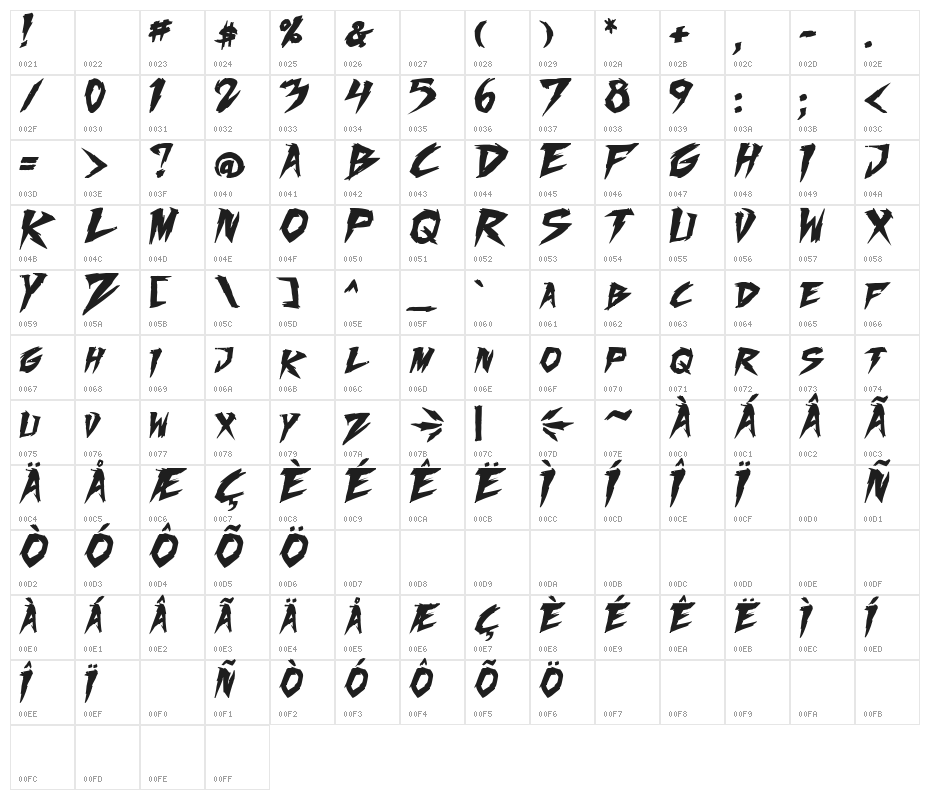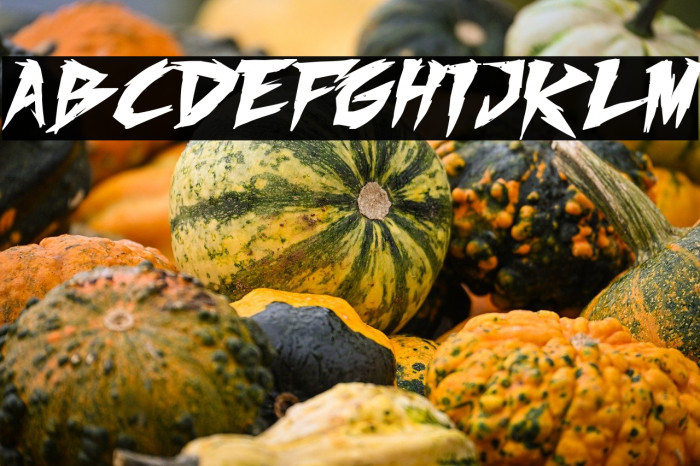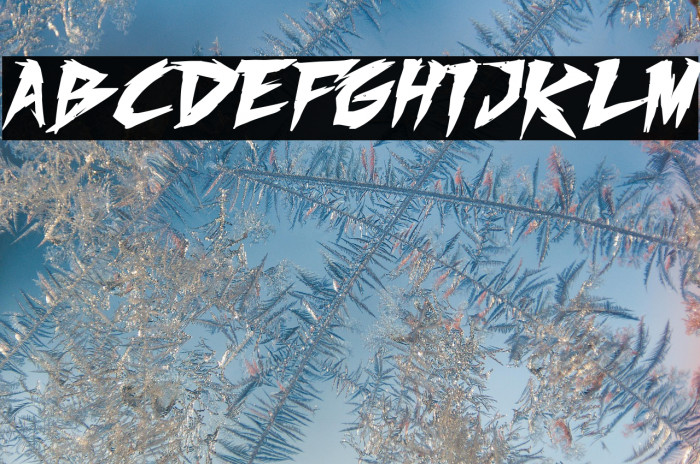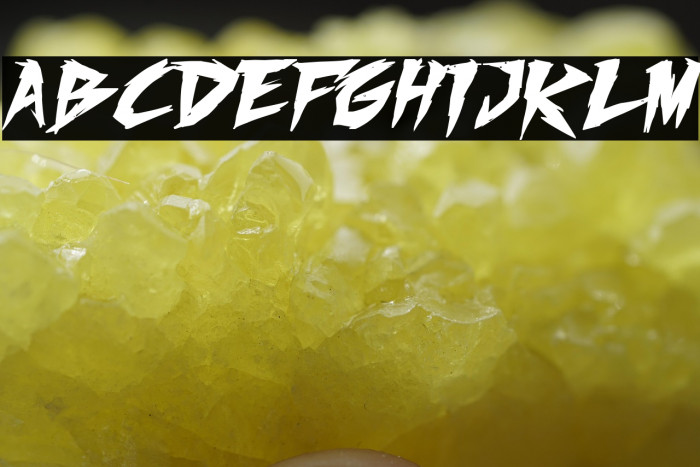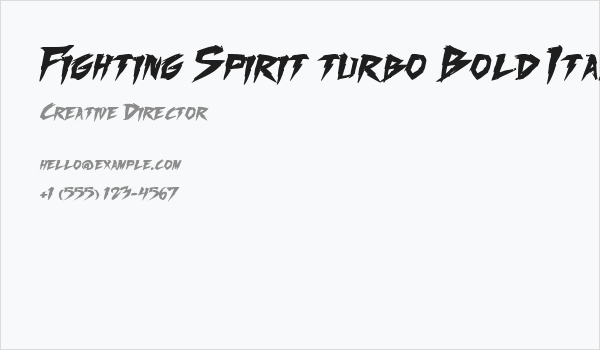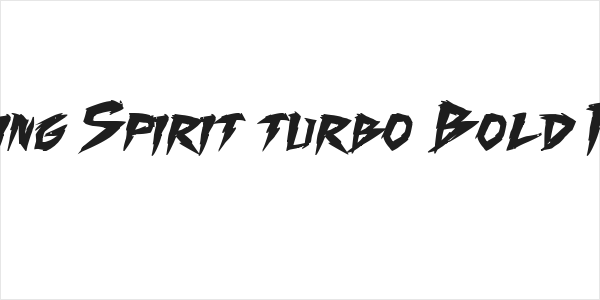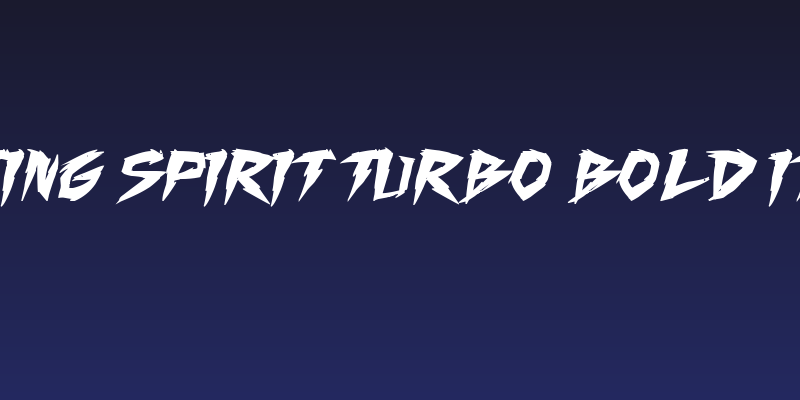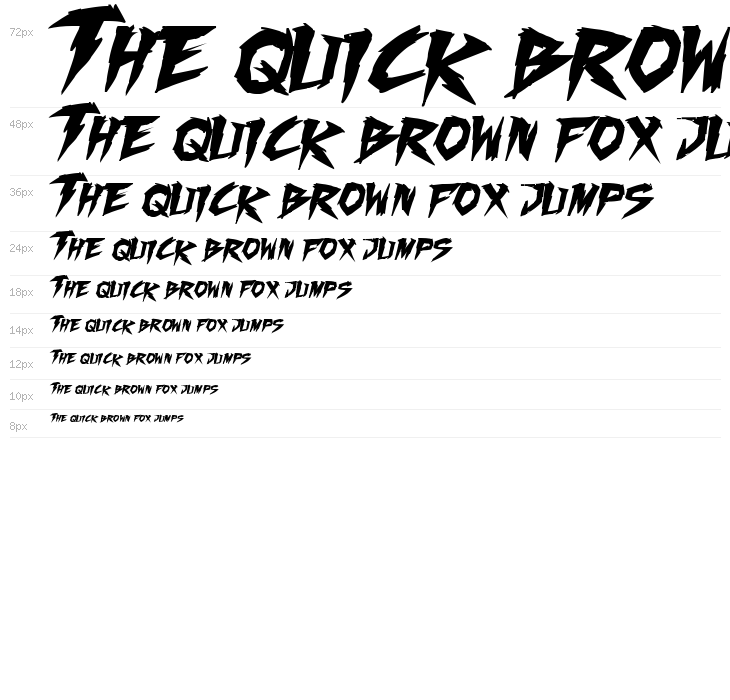
Fighting Spirit turbo Bold Italic Font
Fighting Spirit turbo Bold Italic Description
This font exudes a dynamic and aggressive style, characterized by sharp, angular strokes and a bold presence. The letters are heavily stylized, with jagged edges and a sense of motion, making it ideal for projects that require a sense of energy and intensity. The uppercase and lowercase letters maintain a consistent design, with each character appearing as if it is in motion. The numbers and special characters follow the same aesthetic, ensuring a cohesive look across all text elements. This font is perfect for creating impactful headlines, posters, or branding materials that need to stand out with a bold and edgy appearance.
| Proposed Projects | Perfect for sports branding, action movie posters, video game titles, and dynamic advertising campaigns. |